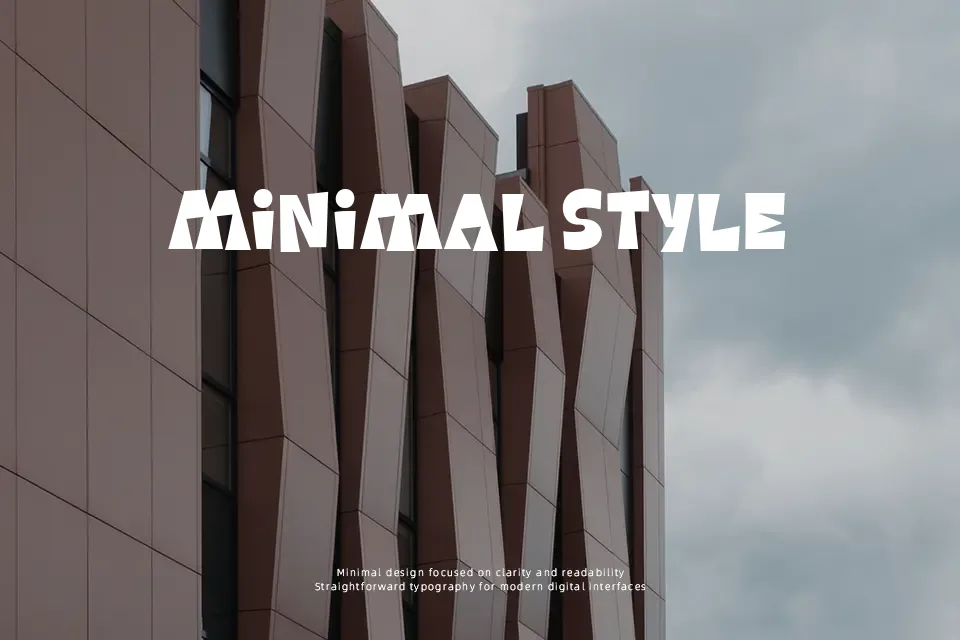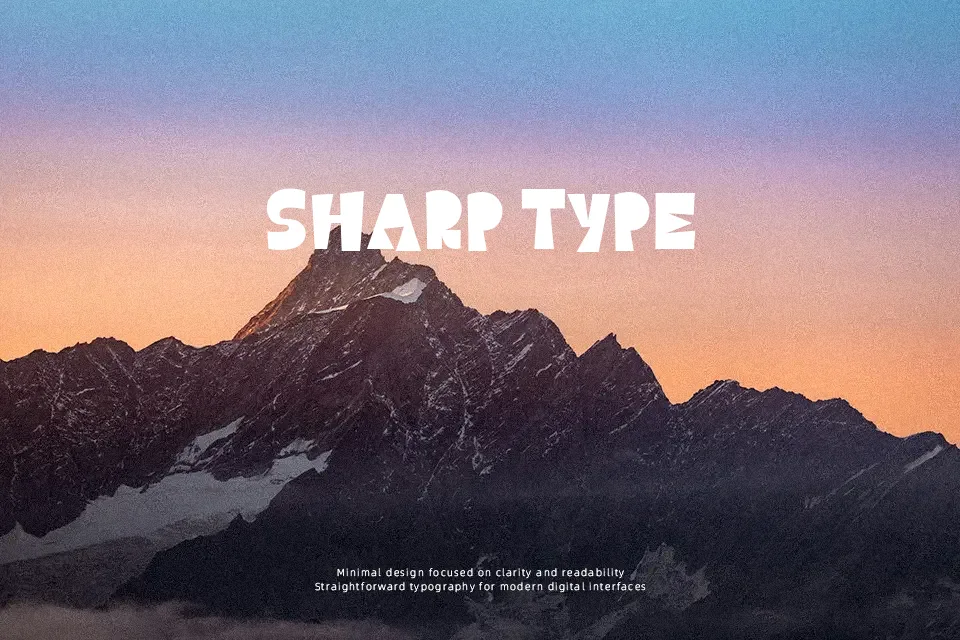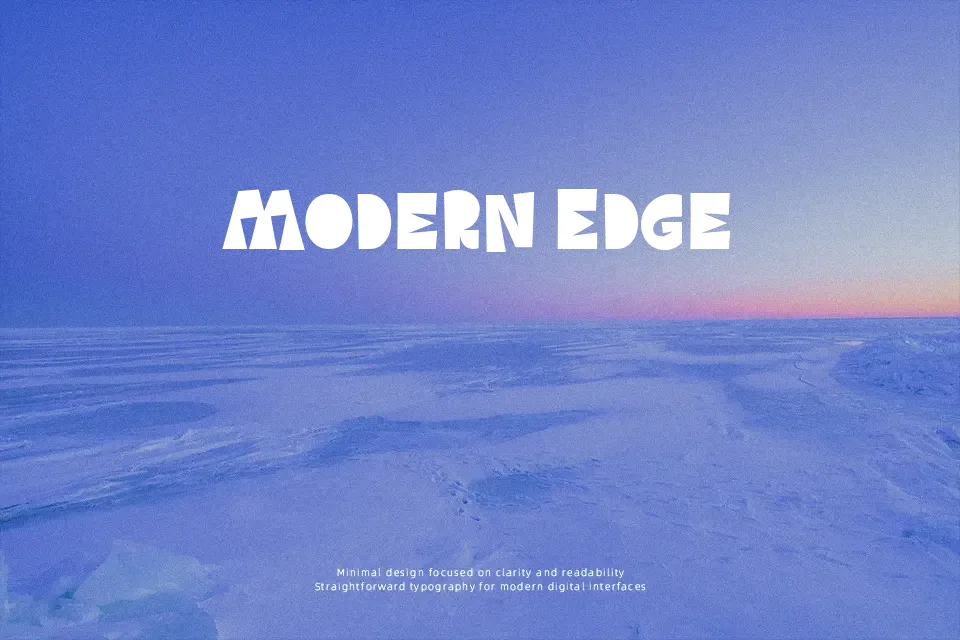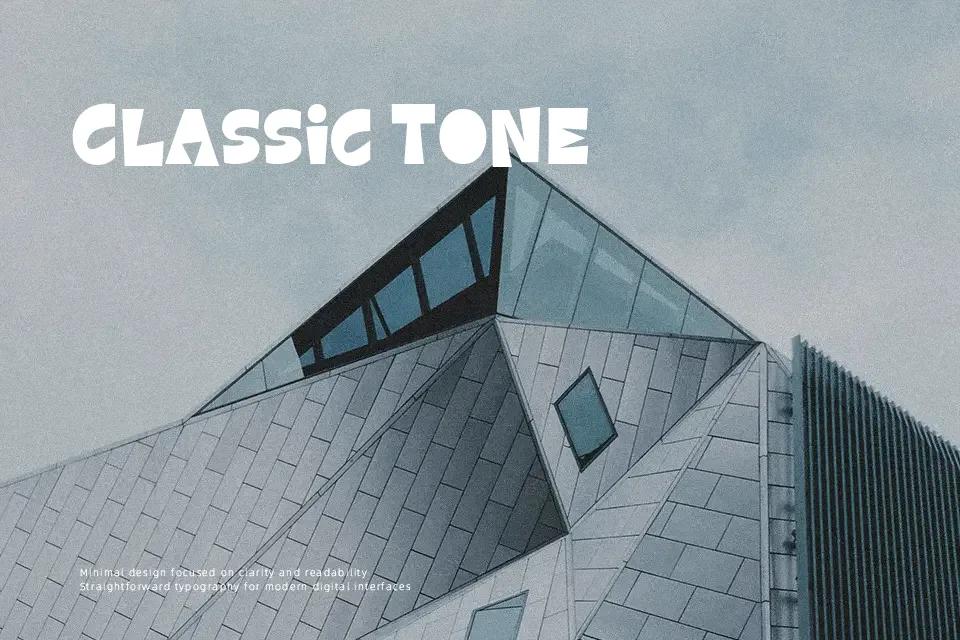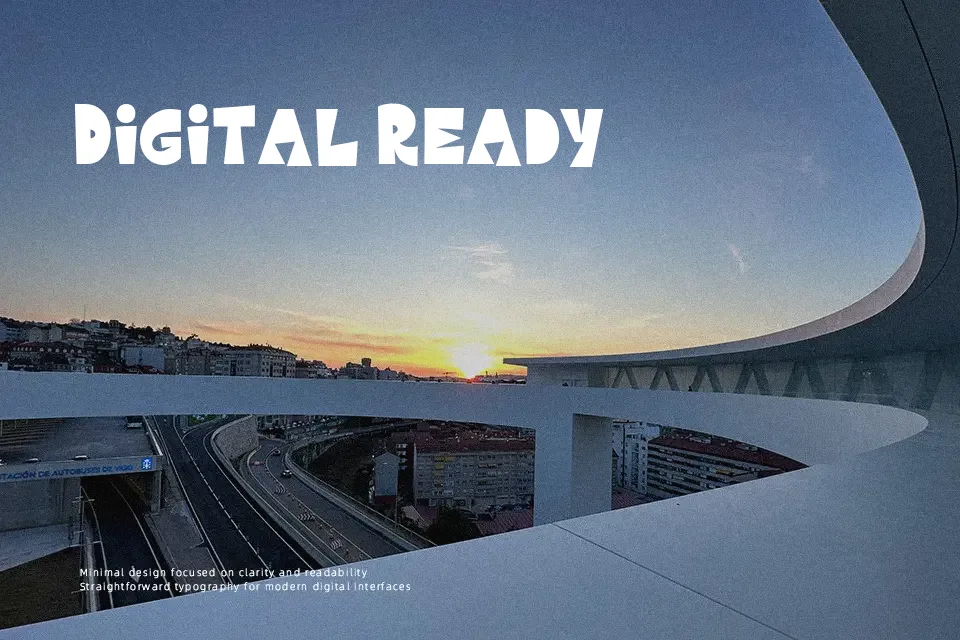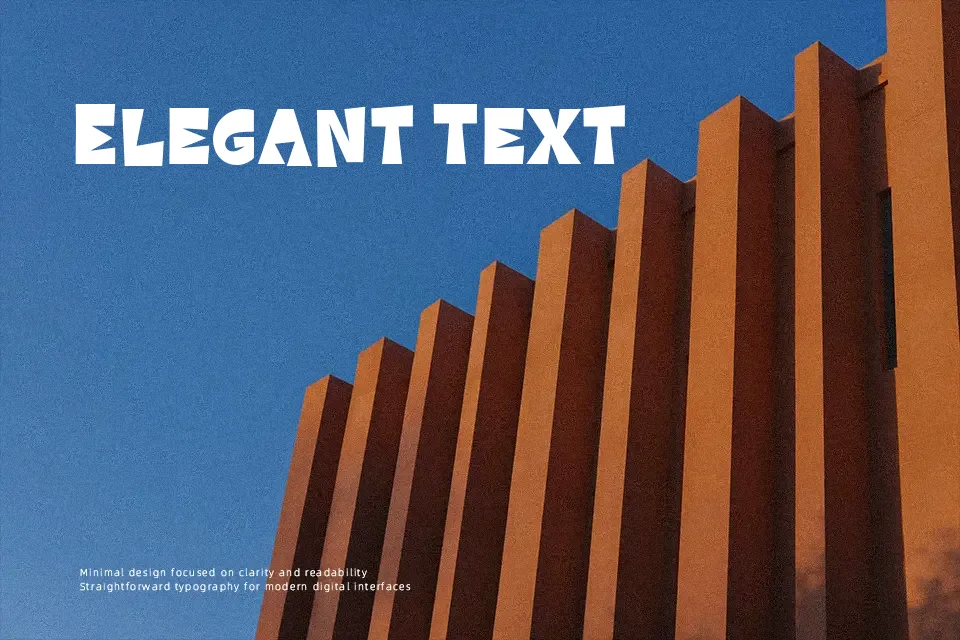
Urgent Burger Font
Designed by Four Lines
Urgent Burger features thick, irregular letterforms influenced by handmade paper cutout shapes. The typeface relies on bold, low-contrast strokes with deliberate angular edges, maintaining an informal rhythm across uppercase and lowercase characters. Balanced yet compact character spacing allows the design to remain legible in large headlines and punchy display graphics. However, the heavy weight and quirky contour variations make continuous body reading fatiguing, causing dense text blocks to lose structural clarity. As an assertive headline choice, the design works best when given plenty of breathing room on vibrant posters, product packaging, and creative logos.
food packaging labels
casual restaurant signage
animated title sequences
children book covers
continuous paragraph reading
legal contract copy
compact mobile interface labels
dense spreadsheet tables
Perfect for kids, logo, and packaging, with a bold and cartoon style.